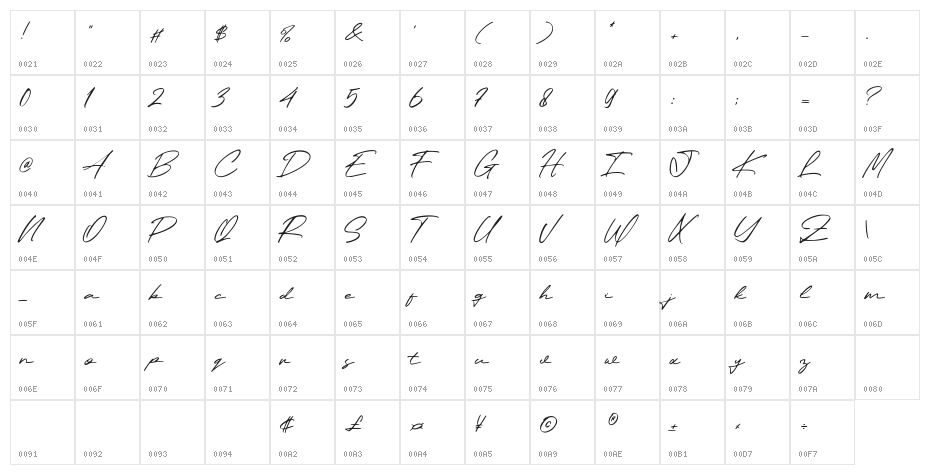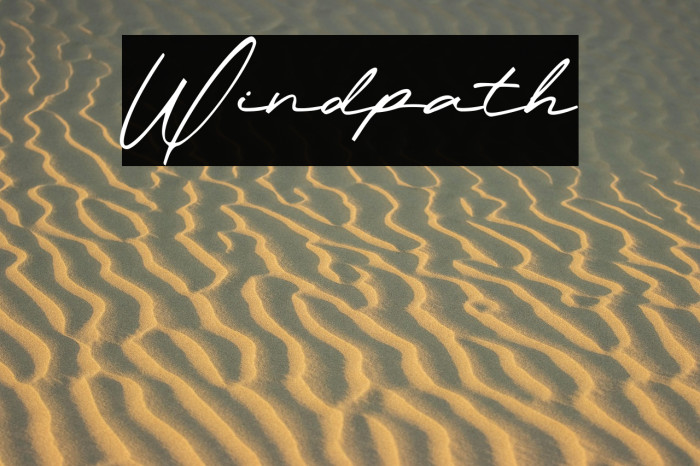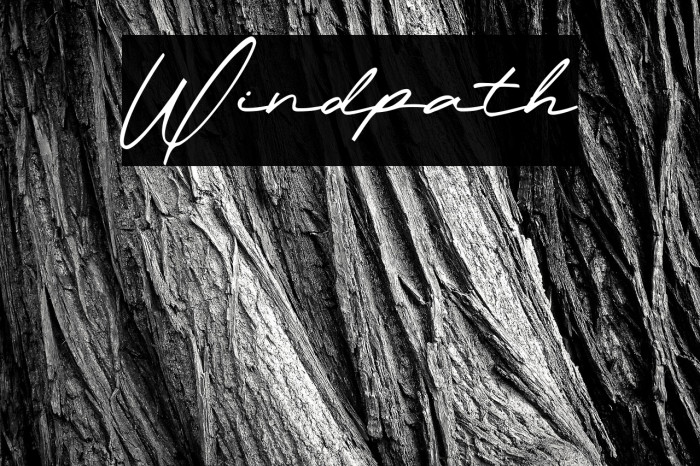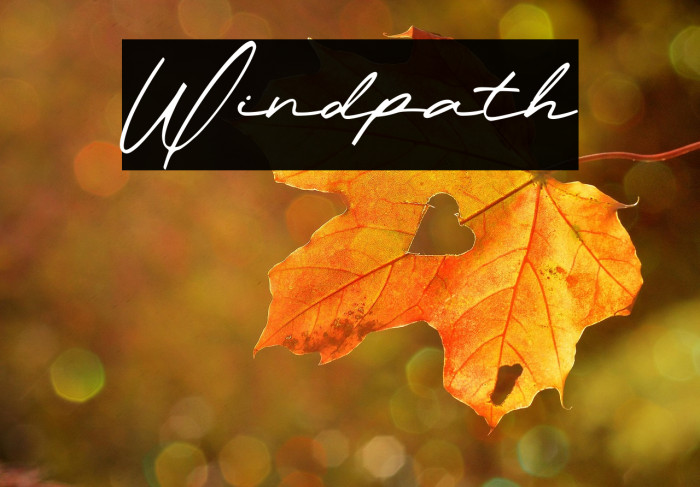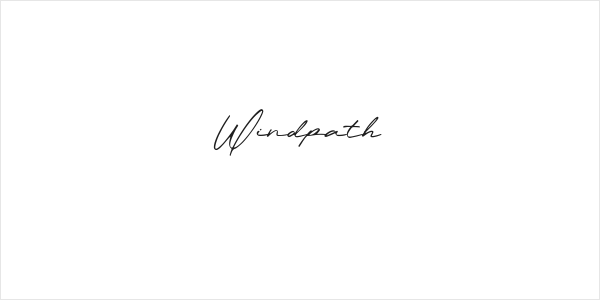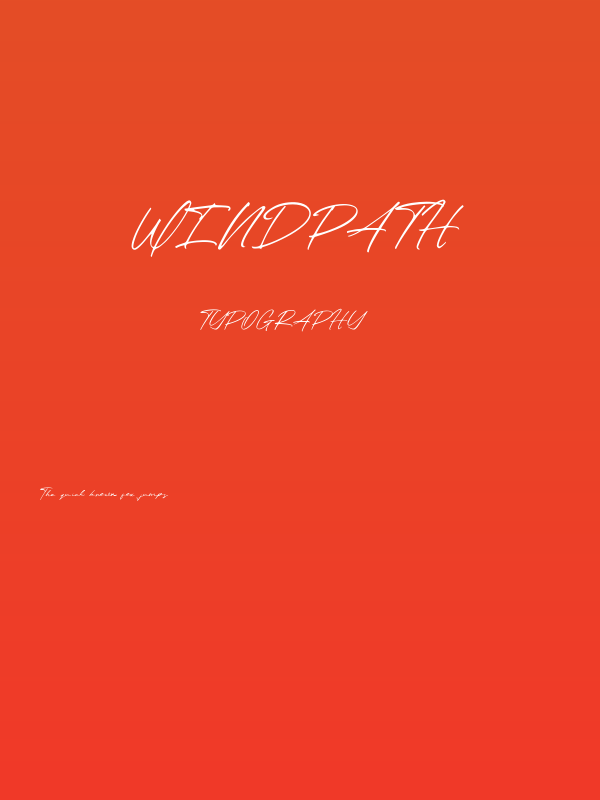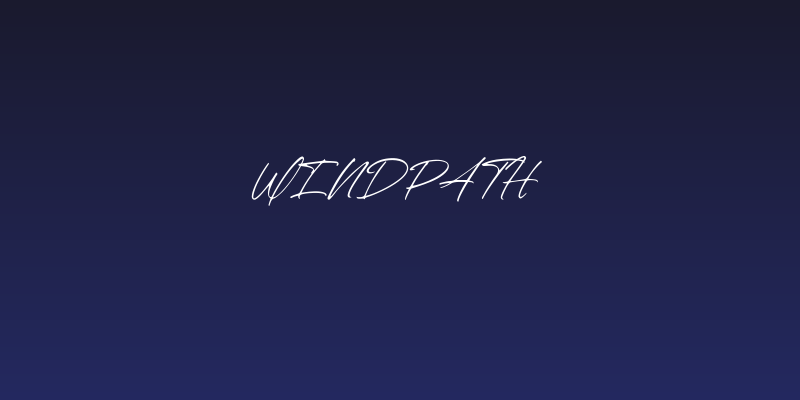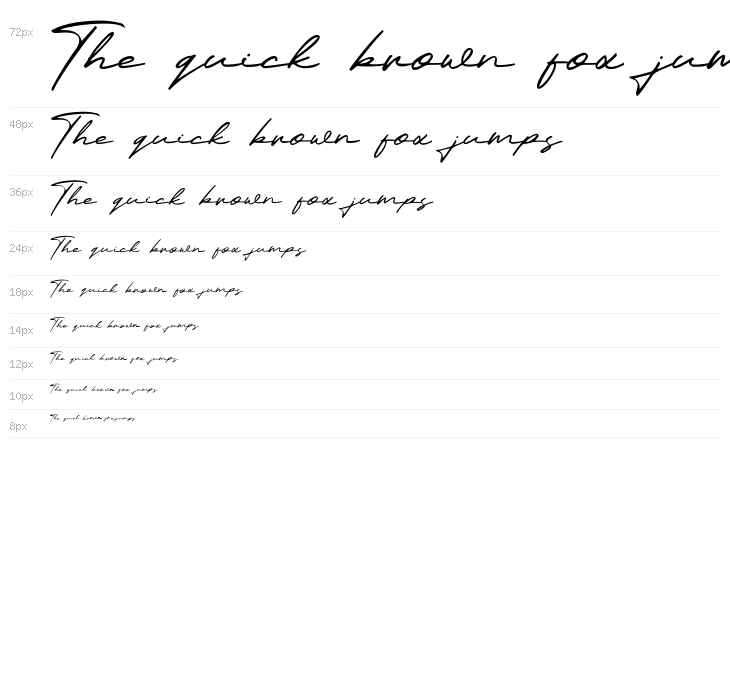
Windpath Font
Windpath Description
This font exhibits a fluid and elegant script style, characterized by its smooth, flowing lines and cursive connections between letters. The uppercase letters are slightly more pronounced, with a graceful, sweeping motion that adds a sense of sophistication. The lowercase letters maintain a consistent flow, enhancing readability while retaining an artistic flair. Numbers and special characters are designed to complement the overall aesthetic, ensuring a cohesive look across all text elements. The font's design is reminiscent of handwritten calligraphy, making it suitable for projects that require a personal touch.
| Overall Style | Elegant, Handwritten |
| Use Case | Logos, Invitations, Personal Branding |
| Proposed Projects | Ideal for wedding invitations, greeting cards, personal branding, and elegant logo designs. |